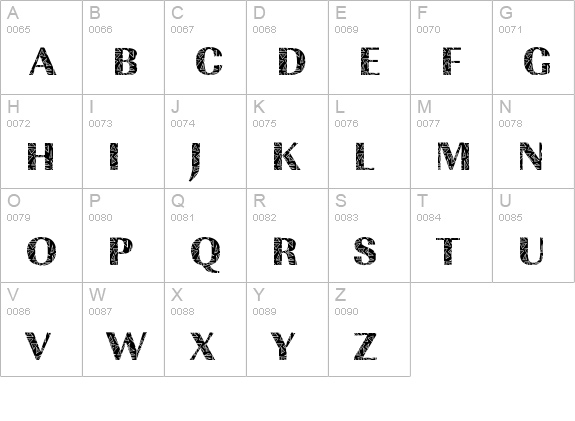
ImperialBrokenGlass-Regular is the standard, neutral variant in the ImperialBrokenGlass typeface family \xE2\x80\x94 well suited to general body text, paragraphs, and standard typographic work.
ImperialBrokenGlass-Regular font is a unique and eye-catching typeface that exudes a sense of elegance and sophistication. Its broken glass-inspired design adds a modern and edgy touch to any project, making it perfect for branding, logos, headlines, and more. The sharp angles and intricate details of this font make it stand out from the crowd and leave a lasting impression on viewers. Best of all, ImperialBrokenGlass-Regular font is available for free download at FontsMarket.com, allowing you to add a touch of creativity to your designs without breaking the bank. Whether you're a professional designer looking for a fresh new font or a hobbyist experimenting with typography, this font is sure to inspire and elevate your work to new heights. Download it today and unleash your creativity with ImperialBrokenGlass-Regular font!